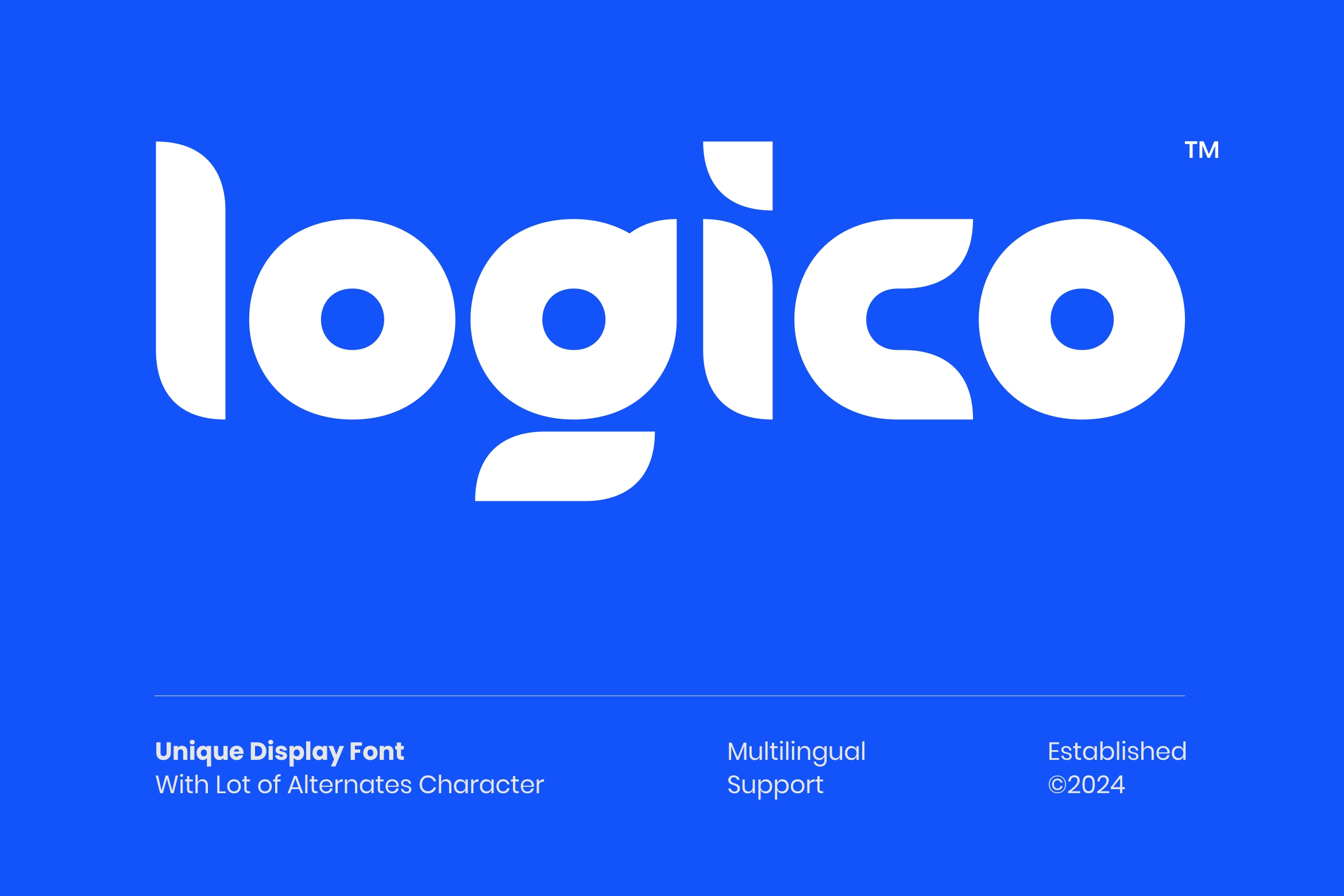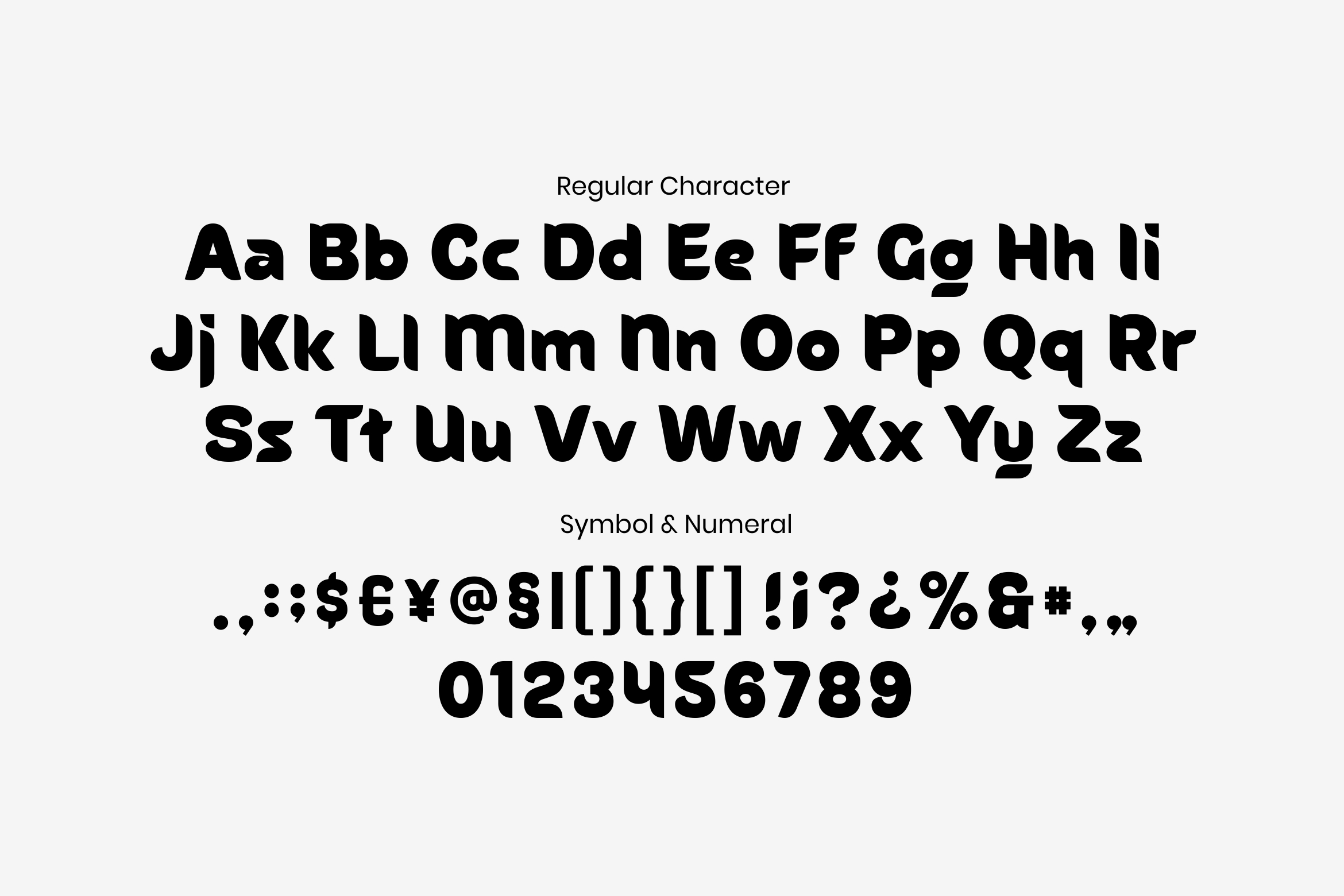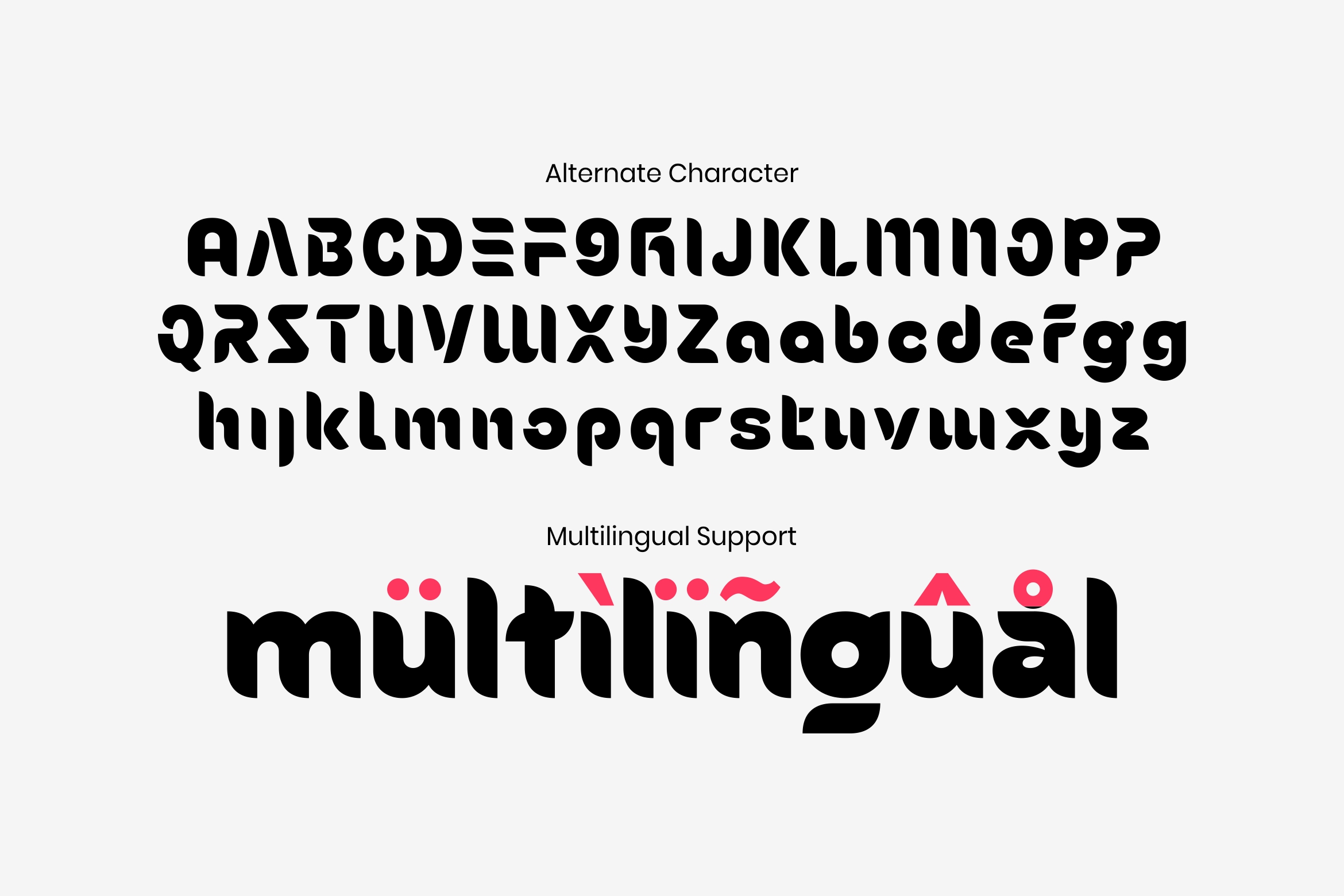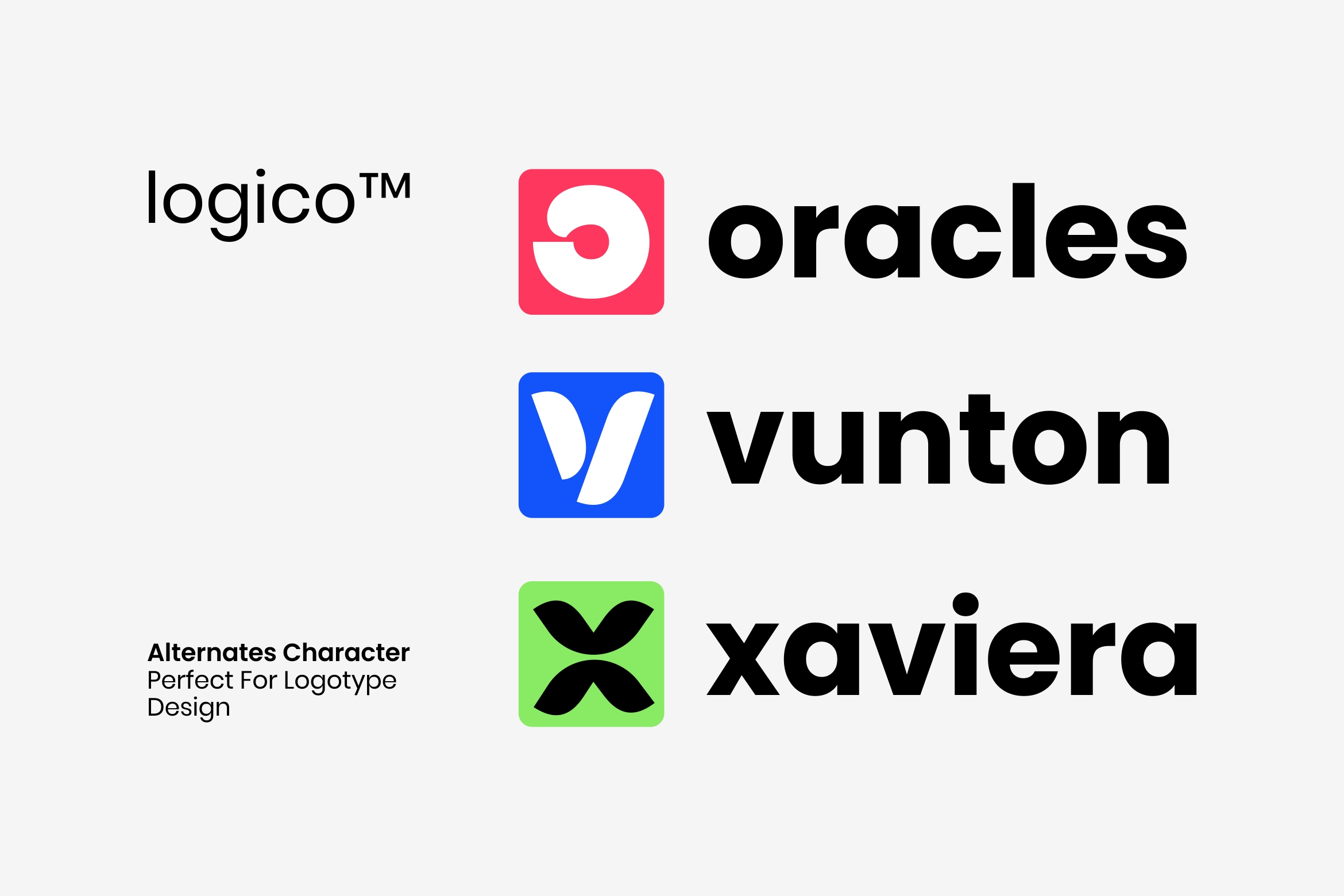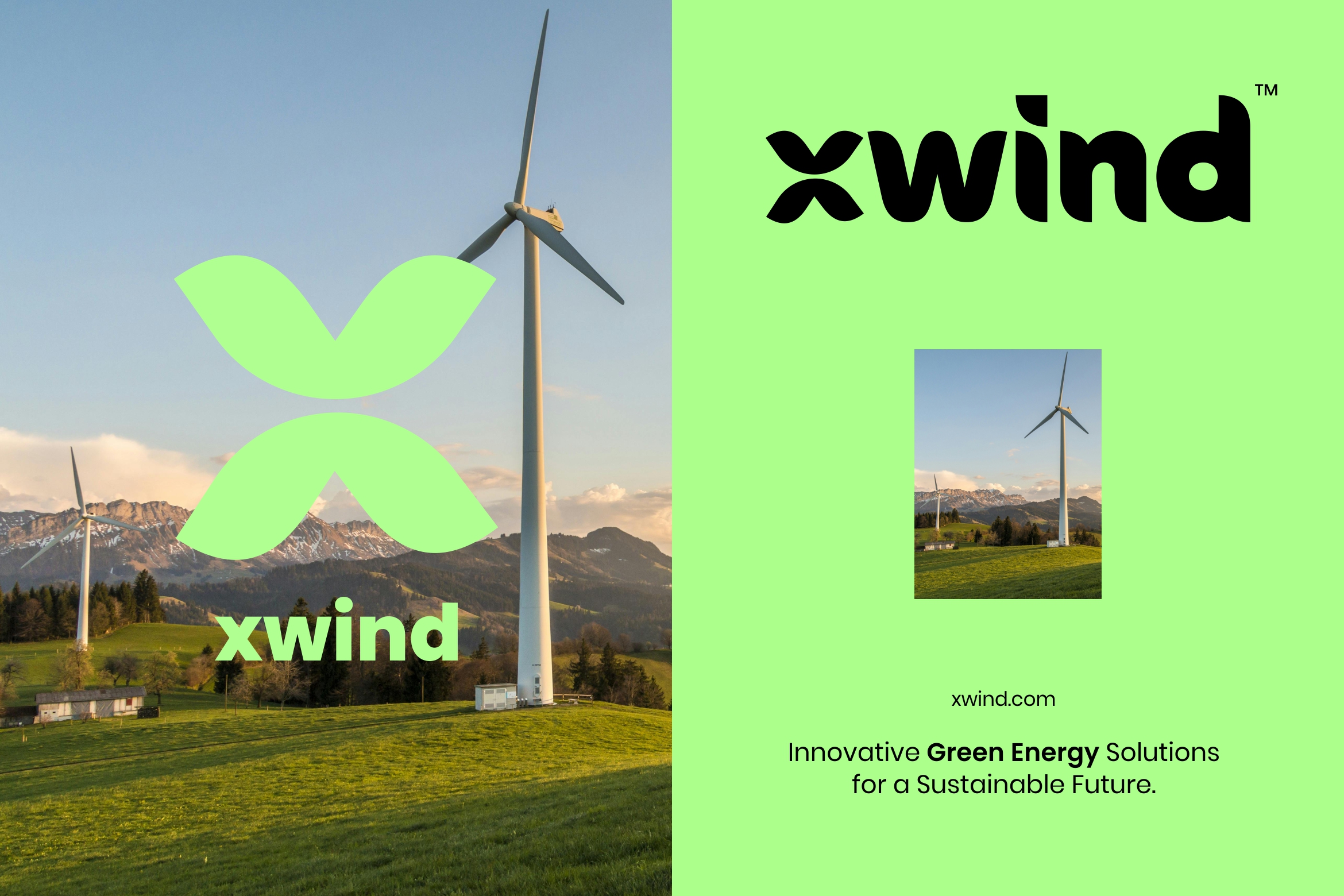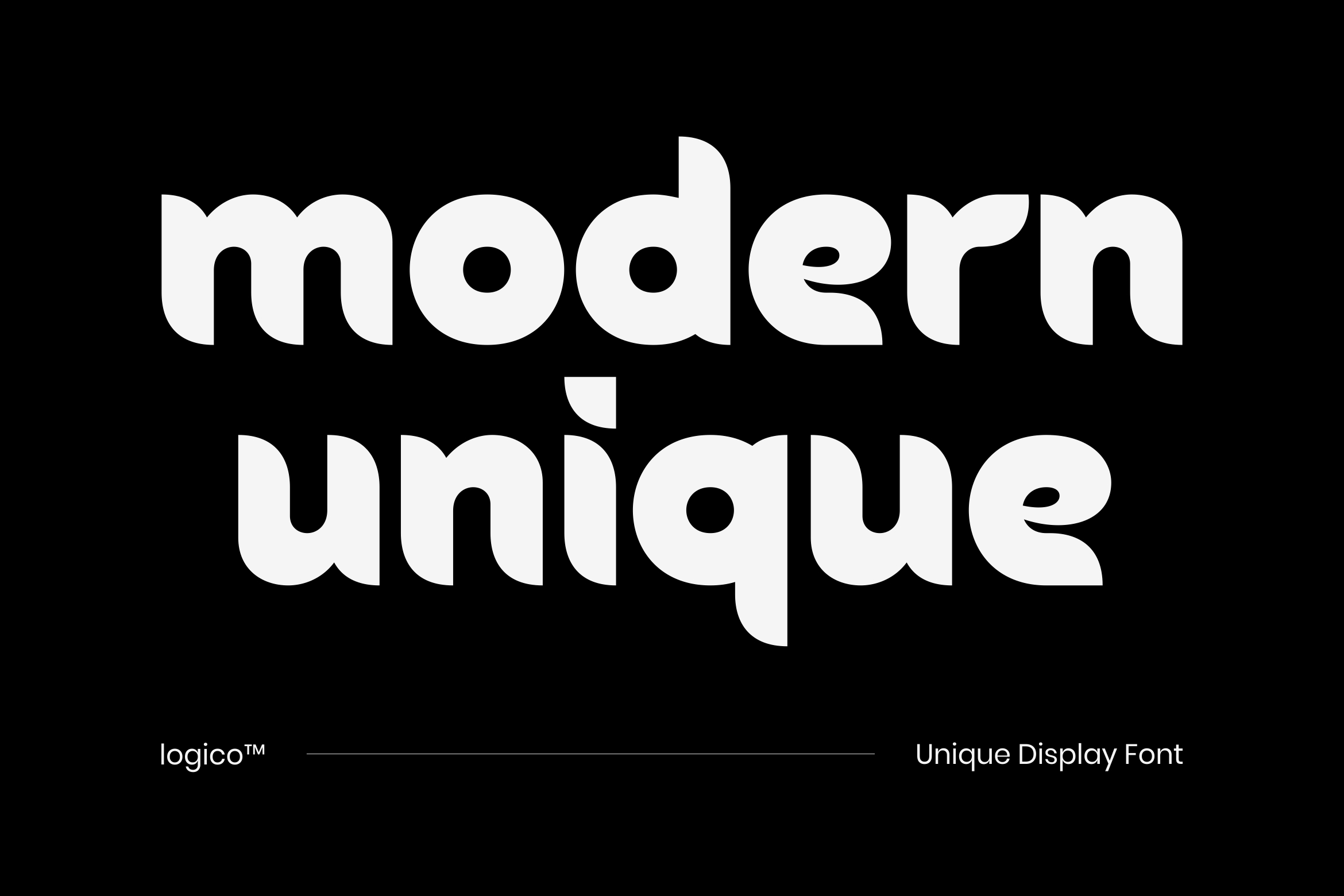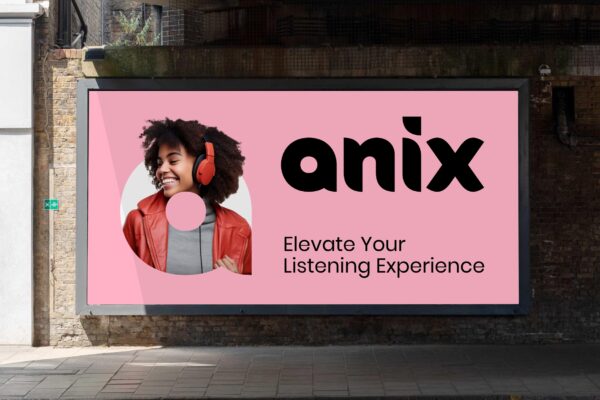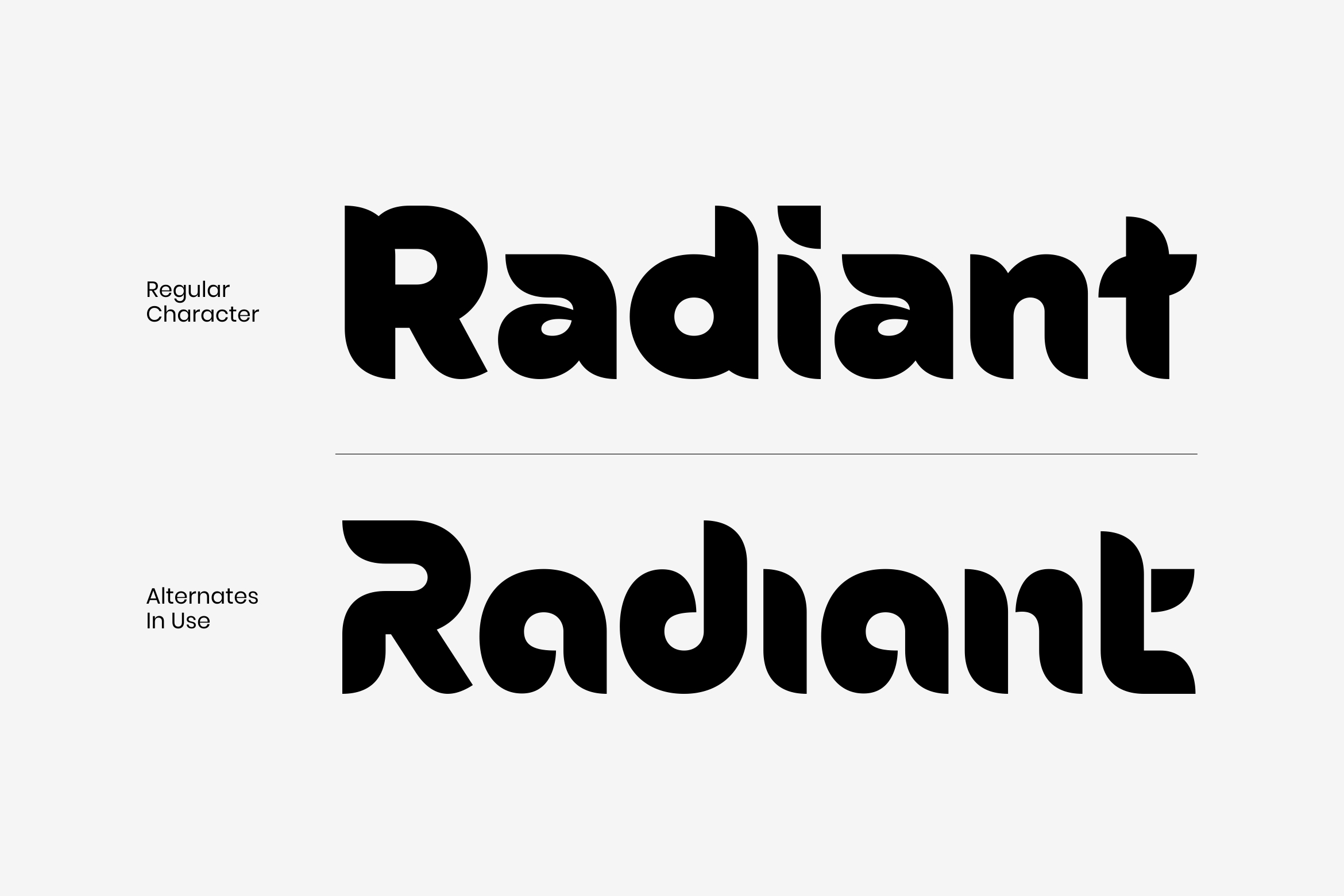
Logico
Logico is a modern and bold display font with a geometric twist and a friendly tone. Its unique, rounded shapes with customizable alternate characters give designers the freedom to craft standout logos and headlines with a futuristic edge.
Ideal for branding, apps, tech startups, and creative packaging, Logico balances functionality and fun. It supports multilingual characters and includes stylistic alternates to help build a consistent yet flexible visual identity.